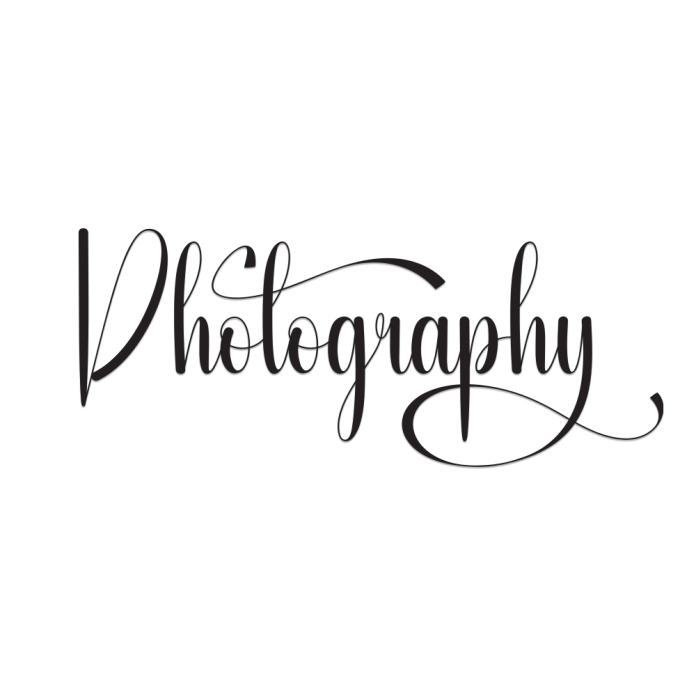
Photography is a stylish handwritten font crafted to bring a personal and artistic flair to your creative work. With its flowing strokes and modern charm, it’s perfect for photography logos, watermarks, signature-style branding, and portfolio presentations.
Whether you're designing for a creative studio, personal brand, or wedding photographer, this font adds a handwritten elegance that feels both authentic and professional.
Uppercase & Lowercase Letters
Signature-Inspired Handwriting Style
Smooth and Natural Flow
Numbers & Punctuation
Multilingual Support
Capture the beauty of creativity with the expressive strokes of Photography font.